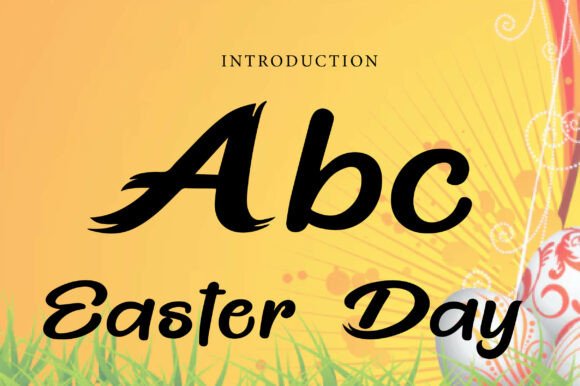
Easter Day Font: The Perfect Addition to Your Festive Designs
Are you looking for a font that can add a touch of warmth, celebration, and personality to your designs? Look no further than Easter Day Font, a joyful and charming script font that’s perfect for seasonal and festive themes. With its smooth flowing strokes, rounded shapes, and playful handwritten character, Easter Day creates a cheerful and friendly look that’s sure to delight.
The Characteristics of Easter Day Font
Easter Day Font is designed to bring a sense of joy and playfulness to your designs. Its soft and expressive style makes it ideal for projects that need a sweet and lively touch. The font features:
- Smooth flowing strokes that create a sense of movement and fluidity
- Rounded shapes that add a touch of warmth and friendliness
- A playful handwritten character that gives your designs a personal and approachable feel
Perfect for Festive and Seasonal Designs
Easter Day Font is specifically designed for seasonal and festive themes, making it the perfect choice for:
- Easter cards and invitations
- Spring event invitations and branding
- Holiday packaging and product design
- Stickers and social media graphics
- Cute logo concepts and branding
Why Choose Easter Day Font?
So why choose Easter Day Font for your designs? Here are just a few reasons:
- Unique and eye-catching: Easter Day Font is a one-of-a-kind font that’s sure to grab attention and make your designs stand out.
- Versatile: The font can be used for a wide range of design projects, from Easter cards to social media graphics.
- Easy to read: Despite its playful and handwritten character, Easter Day Font is easy to read and understand, making it perfect for body text and headlines.
- Customizable: The font can be customized to fit your brand’s style and personality, making it a great addition to your design toolkit.
Tips for Using Easter Day Font
Here are a few tips for using Easter Day Font in your designs:
- Pair with bold colors: Easter Day Font looks great paired with bold, bright colors that match the playful and festive theme.
- Use for headlines and titles: The font is perfect for headlines and titles, where its playful character can really shine.
- Experiment with sizes: Easter Day Font looks great in a range of sizes, from large headlines to smaller body text.
- Add graphics and illustrations: The font pairs well with graphics and illustrations, making it a great choice for designs that feature custom artwork.
Easter Day Font is a joyful and charming script font that’s perfect for adding a touch of warmth, celebration, and personality to your designs. With its smooth flowing strokes, rounded shapes, and playful handwritten character, this font creates a cheerful and friendly look that’s sure to delight. Whether you’re designing Easter cards, spring event invitations, or holiday branding, Easter Day Font is the perfect choice. So why not give it a try and see how it can elevate your designs?